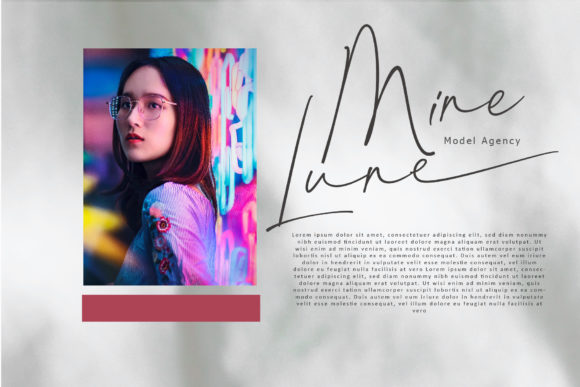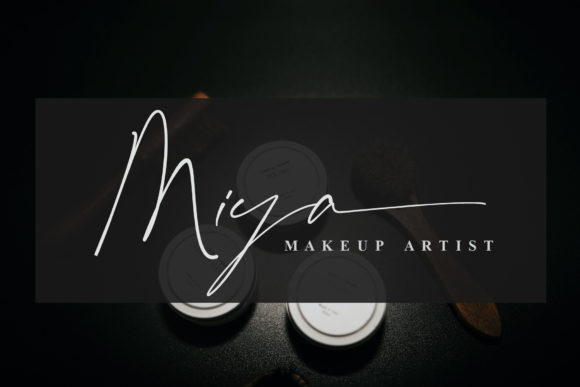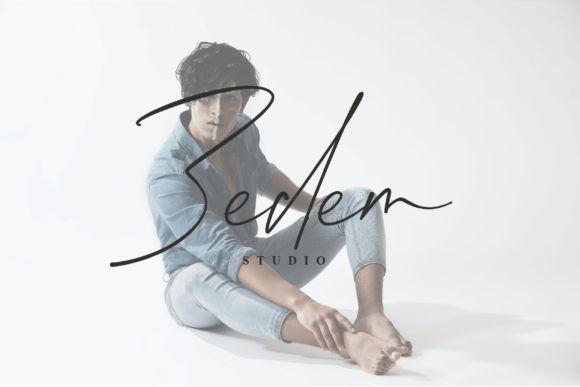
Introduction to Rettry Font
Have you ever stared at a blank canvas, desperately searching for the perfect font to bring your creative vision to life? I know I have. That’s why I’m thrilled to introduce you to the Rettry Font, a stylish and delicate script font that’s sure to elevate any design project. With its clean, thin, and smooth vibe, the Rettry Font is the perfect addition to any creative endeavor.
Whether you’re working on a high-quality design for a client or a personal project, the Rettry Font is a valuable resource that’s sure to impress. Its versatility makes it perfect for a wide range of applications, from business cards to social media graphics, and even websites with transparent backgrounds.
Key Features of Rettry Font
- Transparent background, making it ideal for creative projects that require a clean and minimalist design.
- High-quality design, suitable for a variety of creative projects, from print to digital media.
- Features a unique, modern design style, perfect for designers looking to add a touch of sophistication to their creative project.
- Designed at a high resolution of 300 DPI, making it suitable for both print and digital media.
Honest Review: Rettry Font
I recently had the chance to try out the Rettry Font, and I must say it’s been a pleasant surprise. The font has a unique, quirky feel to it that’s perfect for creative projects where you want to add a bit of personality.
- ✨ The font has a transparent background, which makes it easy to use on different backgrounds without worrying about it getting lost.
- ✨ High quality and crisp typography make it perfect for print and digital design.
One thing to note is that the font might not be suitable for every project. For example, if you’re looking for a professional, corporate font, Rettry might not be the best choice.
- ⚠️ The font’s quirkiness might not appeal to everyone, and some designers might find it too unconventional.
Overall, I think Rettry Font is a great design resource for designers looking to add some creativity to their projects. With its unique style and high quality, it’s definitely worth checking out.
Tips for Getting the Most Out of Rettry Font
Use the Rettry Font for creative projects that require a unique and eye-catching design.
Combine the Rettry Font with a transparent background for a professional and modern look.
Experiment with different font sizes and colors to create a visually appealing design.
The Rettry Font is perfect for:
Designing logos and branding materials.
Creating social media graphics and ads.
Developing marketing materials and brochures.
Designing websites and landing pages.
Yes, the Rettry Font is designed to be highly versatile and can be used with a transparent background. This makes it an ideal choice for creative projects that require a high level of design flexibility, such as graphic design, digital art, and web design.
What is the recommended resolution for using the Rettry Font?
We recommend using the Rettry Font at a resolution of 300 DPI or higher for optimal quality. This will ensure that the font looks its best in both print and digital applications, and will help to prevent any potential issues with font clarity or legibility.